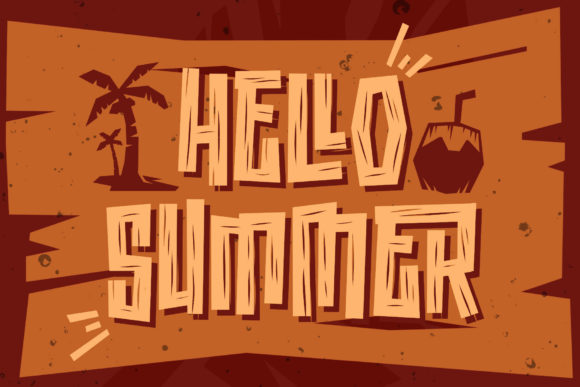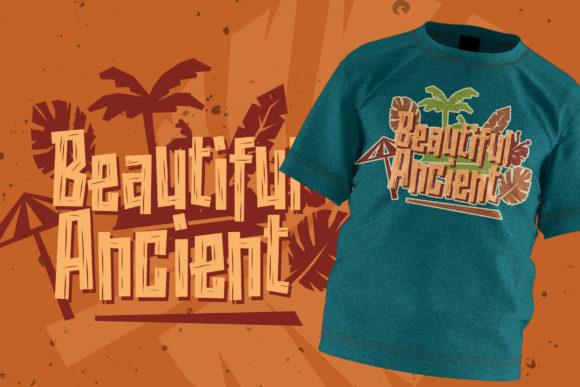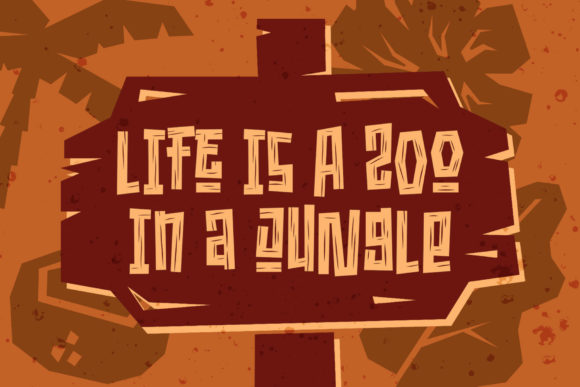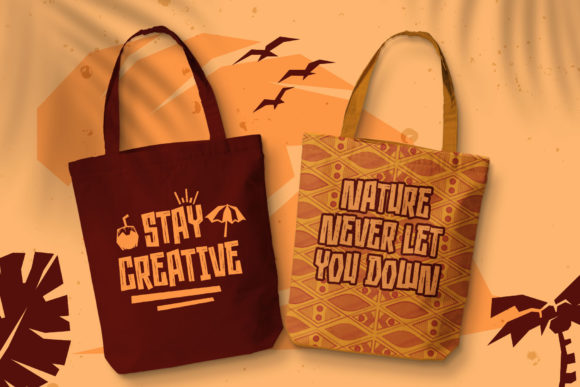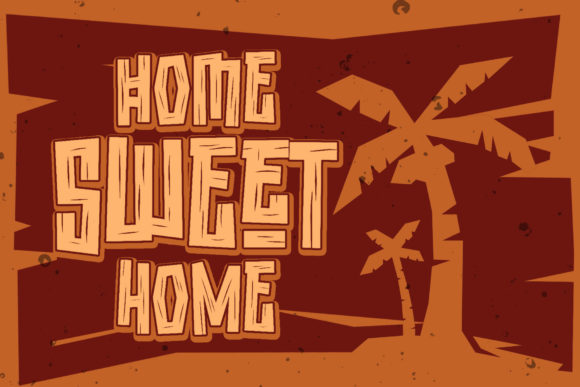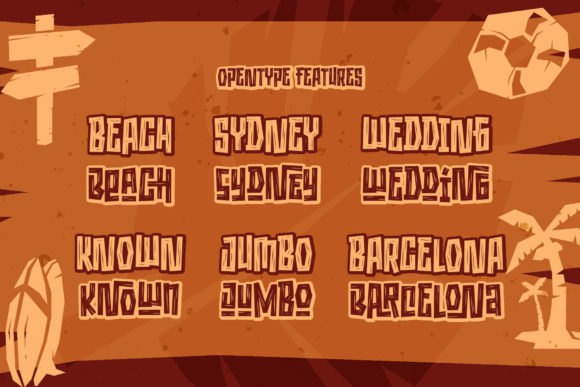
Introduction to Naluka Font
As a designer, you know the magic moment when a project comes together – the perfect combination of colors, shapes, and typography. It’s that instant when your creative vision takes shape, and you can’t wait to share it with the world. For many designers, finding the right font can be a game-changer, setting the tone for a successful and engaging design.
That’s where the Naluka Font comes in – a cool, thick lettered and cartoon-like duo font that’s perfect for children-themed designs. With its unique blend of dingbats and display elements, this font is a valuable addition to any design resource. And the best part? It’s PUA encoded, making it easy to access all the glyphs and swashes you need to bring your creative project to life.
Whether you’re working on a free download or a high-quality commercial project, the Naluka Font is sure to add a playful touch to your design. Its transparent background makes it easy to layer and combine with other elements, giving you endless possibilities for creativity. So why settle for a generic font when you can add some personality to your design with the Naluka Font?
Key Features of Naluka Font
- This high-quality font features a unique, hand-drawn design with a transparent background.
- Naluka Font is designed to be highly legible at various resolutions, including 72 dpi and 300 dpi.
- The font family includes a range of styles and weights, making it versatile for different design applications.
- Naluka Font is a great addition to any design library, offering a distinctive and creative touch to various projects.
Honest Review: Naluka Font
As a designer, I’m always on the lookout for high-quality design resources to elevate my creative projects. Recently, I came across the Naluka Font, which caught my eye with its elegant and modern design. In this review, I’ll share my honest thoughts on this font.
- ✨ Unique and modern design that can add a touch of sophistication to any project.
- ✨ High-quality vectors that ensure crisp and clear rendering, even at large sizes.
- ✨ Transparent background option, making it easy to customize and integrate into various design environments.
- ⚠️ Limited character set, which may not be suitable for extensive text-based projects.
- ⚠️ Some users may find the font a bit too ornate, which may not be suitable for all design styles.
Overall, I think the Naluka Font is a great addition to any designer’s toolkit. Its unique design and high-quality vectors make it an excellent choice for creative projects. While it may have some limitations, I believe its benefits far outweigh its drawbacks. If you’re looking for a modern and elegant font to add to your design arsenal, I highly recommend giving the Naluka Font a try.
Customizing Naluka Font
Naluka Font offers a transparent background, making it ideal for designs that require a clean and modern look. You can also adjust the font size, color, and style to suit your creative project’s needs.
To get the most out of Naluka Font, use it for titles, headings, and body text in your designs. This font is particularly useful for creating visually appealing social media graphics, presentations, and marketing materials.